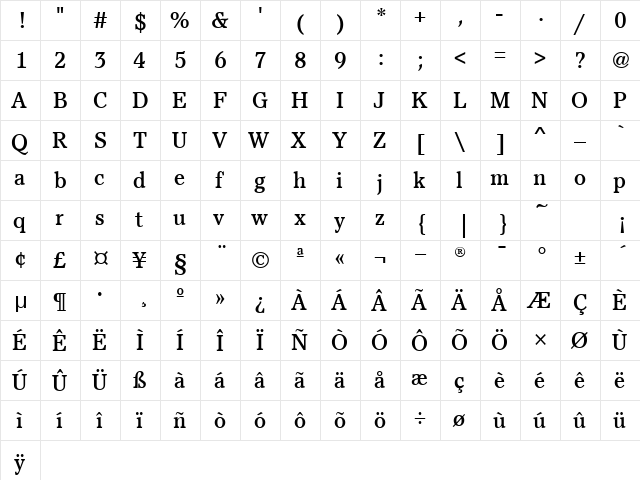
PacellaMdITCTT Regular Font Preview
PacellaMdITCTT Regular
PacellaMdITCTT Regular Font Details
| Foundry | International Typeface Corporation |
| Designer | Vincent Pacella |
Design Context for PacellaMdITCTT Typeface
PacellaMdITCTT takes a measured approach to typography — its balanced proportions and neutral character make it a reliable workhorse for both digital and print work.